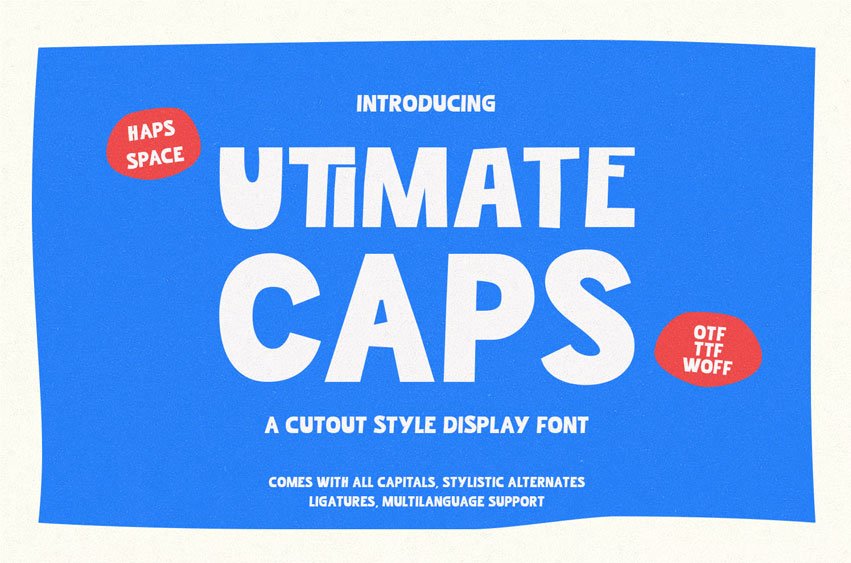
Utimate Caps Cutout Font is a bold, all-caps display typeface characterized by a distinctive cutout style, giving it a playful yet strong visual impact. Designed primarily for headline and display usage, this font features robust, chunky letterforms that command attention. The overall presentation suggests a theme of fun, energy, and retro-inspired design.
- OpenType features such as ligatures and alternates